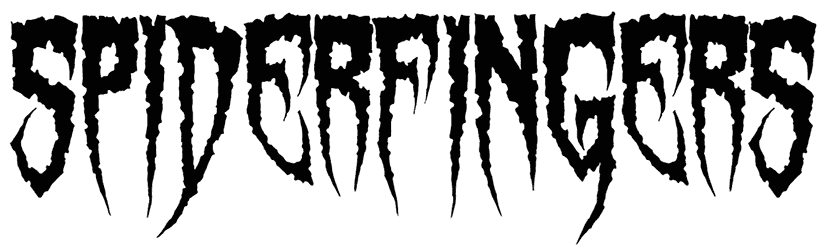
Spiderfingers Font
Is it crucial for you to make your design stand out from the crowd by using a unique horror font? Spiderfingers is a fancy font that can be used to give your artwork a spooky look.
Spiderfingers Font by Chad Savage
http://www.sinisterfonts.comCreated 2009, hand-lettered just after Halloween.
This font is intended for specialty and graphic uses. It will look just awful if used in a paragraph format.